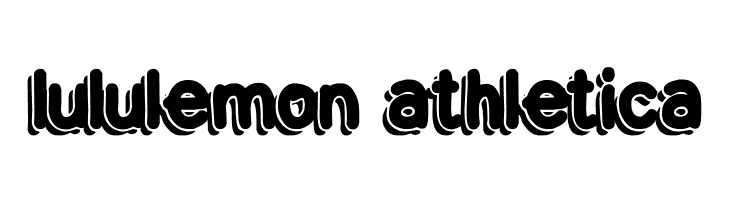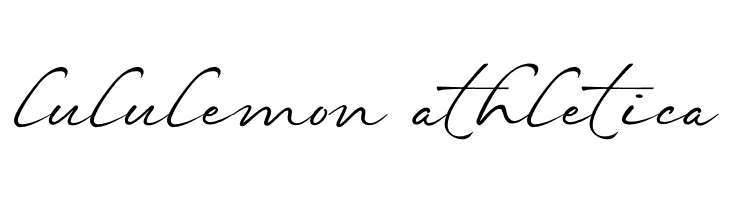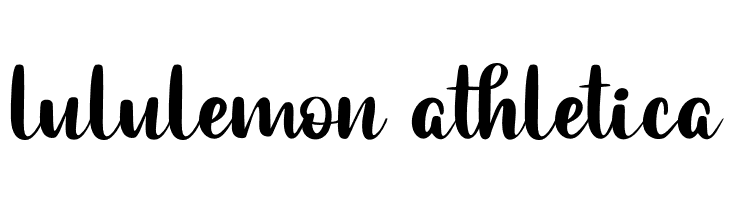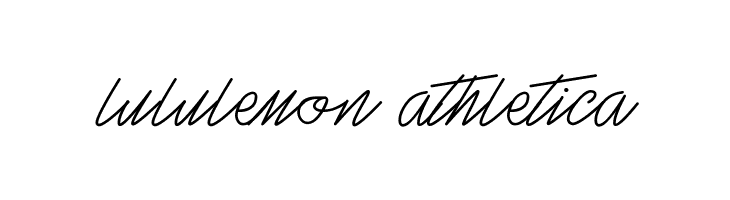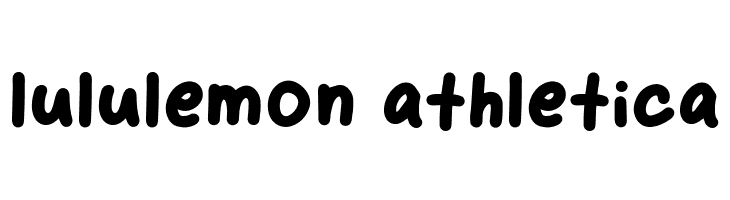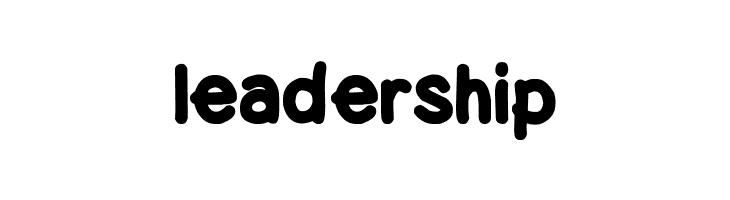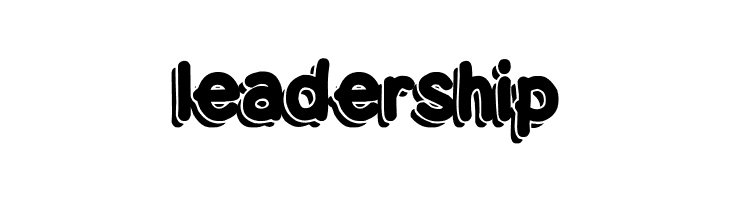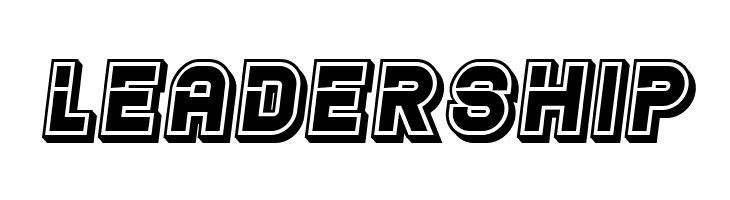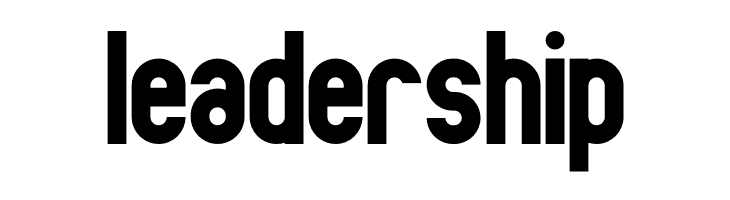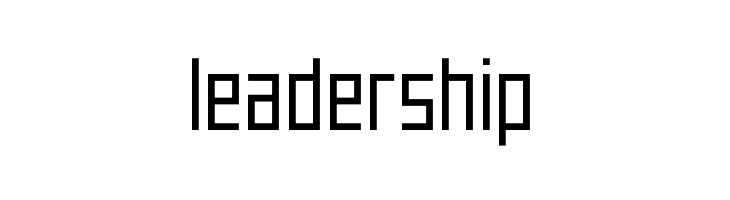
A bold, playful font with a hand-drawn, informal style.
A bold, playful font with a hand-drawn, casual style.
A bold, rugged font with a handcrafted, distressed appearance.
A playful, elegant script font with flowing, cursive letters.
A playful, handwritten font with a casual and whimsical style.
A whimsical, bold, and decorative font with interconnected strokes and a calligraphic style.
A whimsical, artistic font with flowing, interconnected strokes and a handwritten appearance.
A playful, handwritten-style font with irregular, dynamic strokes.
A digital, segmented font with a geometric, tech-inspired design.
A playful, informal handwritten font with irregular strokes and a casual appearance.
Tall, playful handwritten font with a casual, informal feel.
A bold, graffiti-inspired font with jagged edges and a distressed texture.
A bold, high-contrast serif font with a modern twist.
A playful, handwritten font with a friendly and casual style.
A playful, handwritten font with rounded edges and a casual style.
A lively, expressive handwritten font with fluid, dynamic strokes.
A bold, hand-drawn font with dynamic, irregular strokes.
An elegant, flowing script font with a modern touch.
A bold, dripping font perfect for horror themes and Halloween designs.
A playful, hand-drawn font with thin, whimsical strokes.
A playful, casual script font with flowing, cursive letterforms.
A sleek, modern font with rounded, italicized characters.
A sleek, modern font with rounded, slanted characters.
A playful, handwritten font with thin, elongated characters and whimsical elements.
A playful, hand-drawn font with a whimsical and casual style.